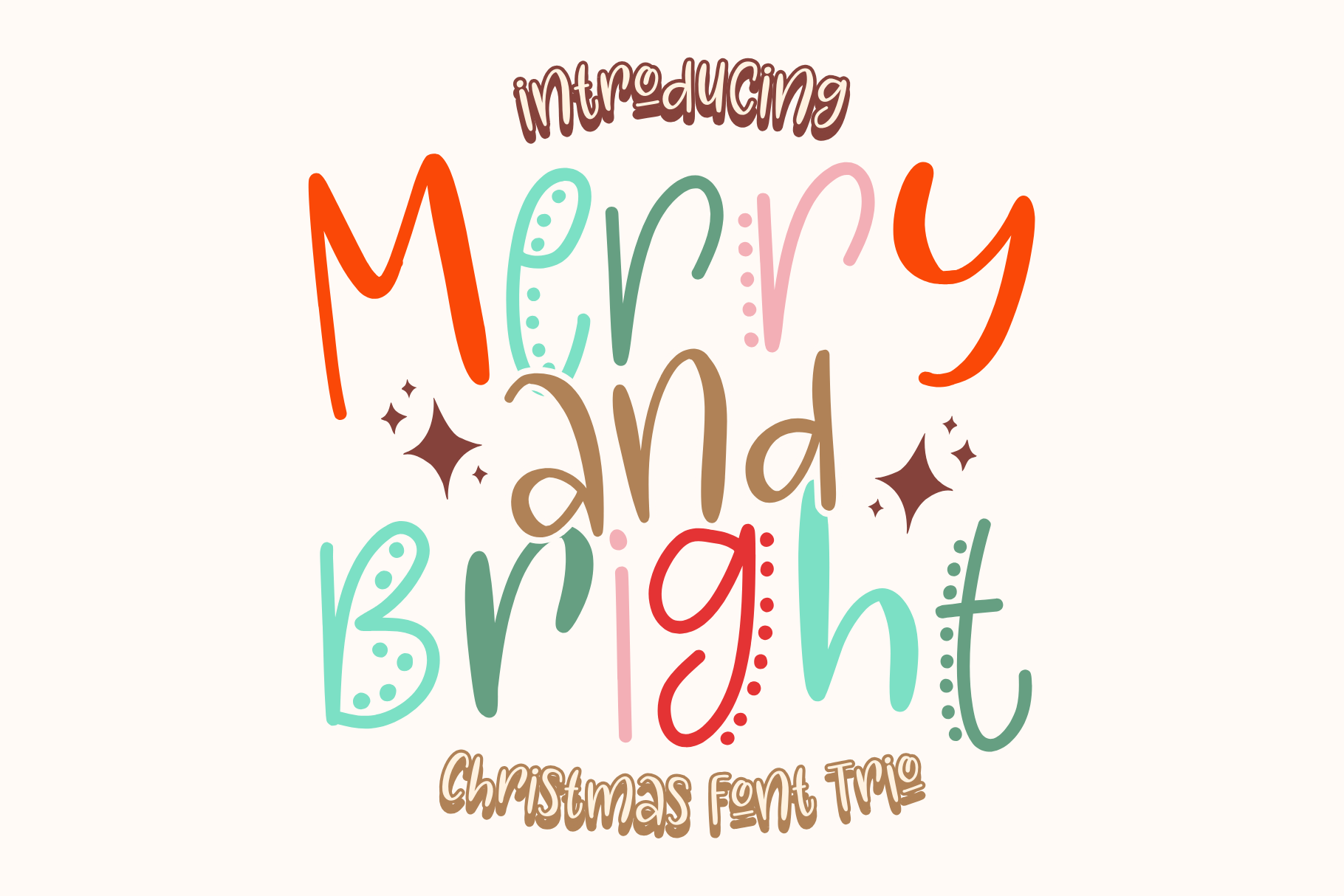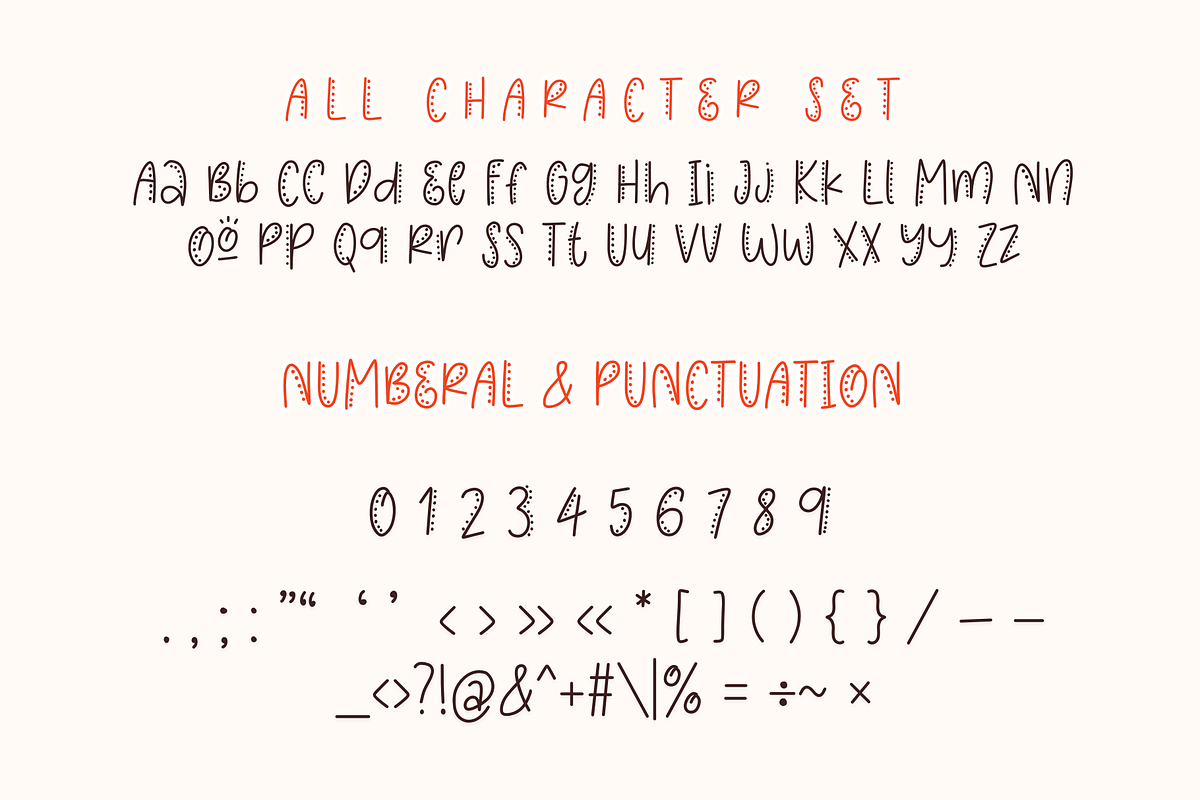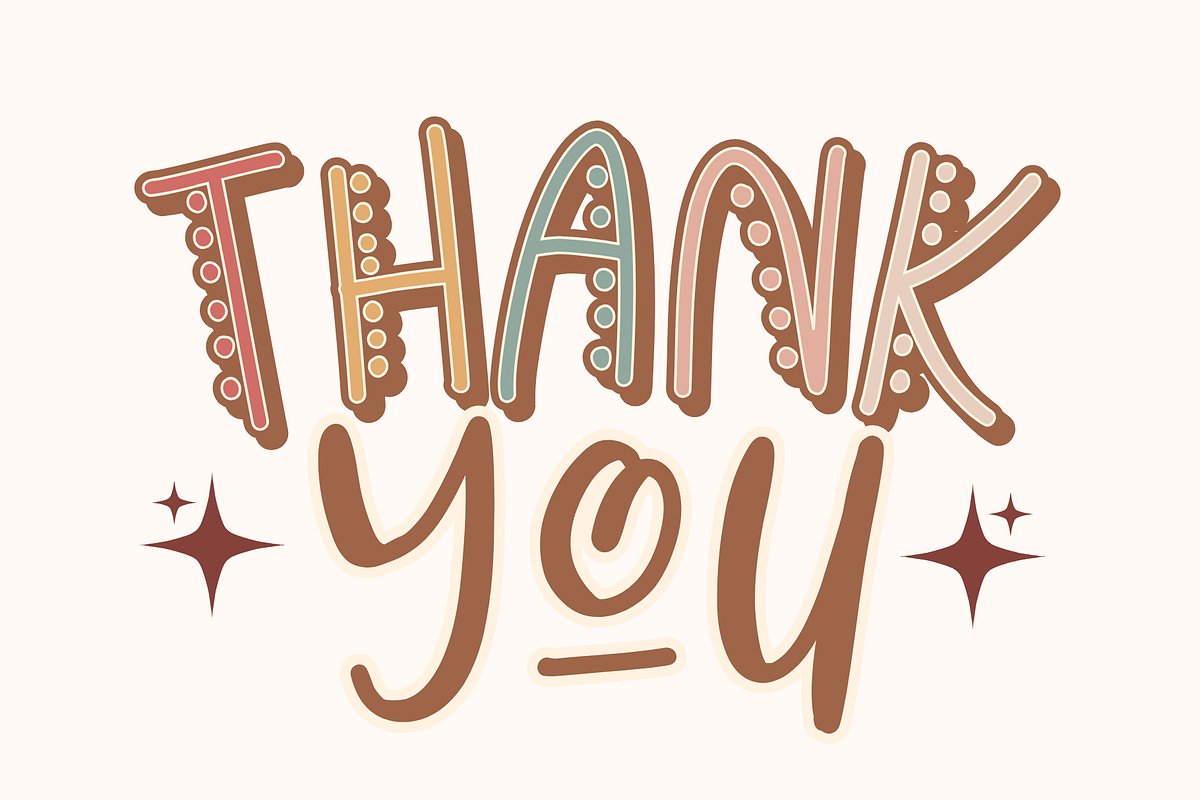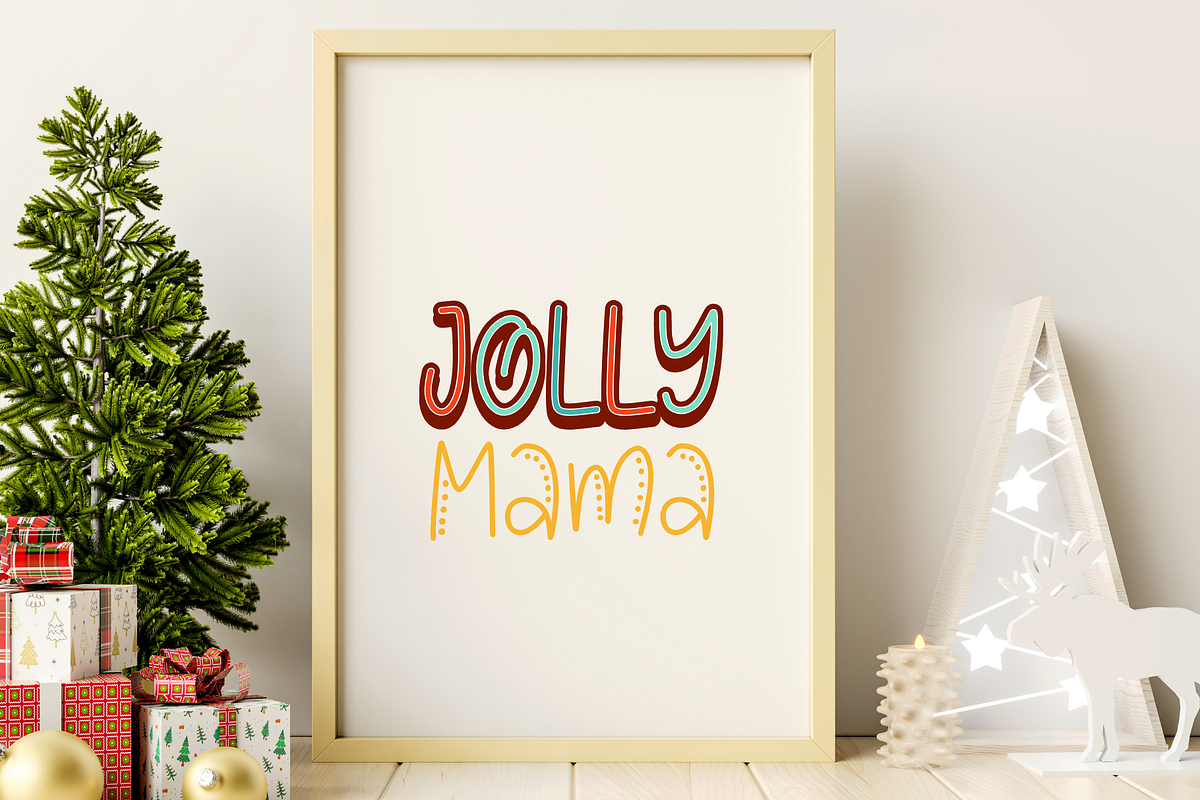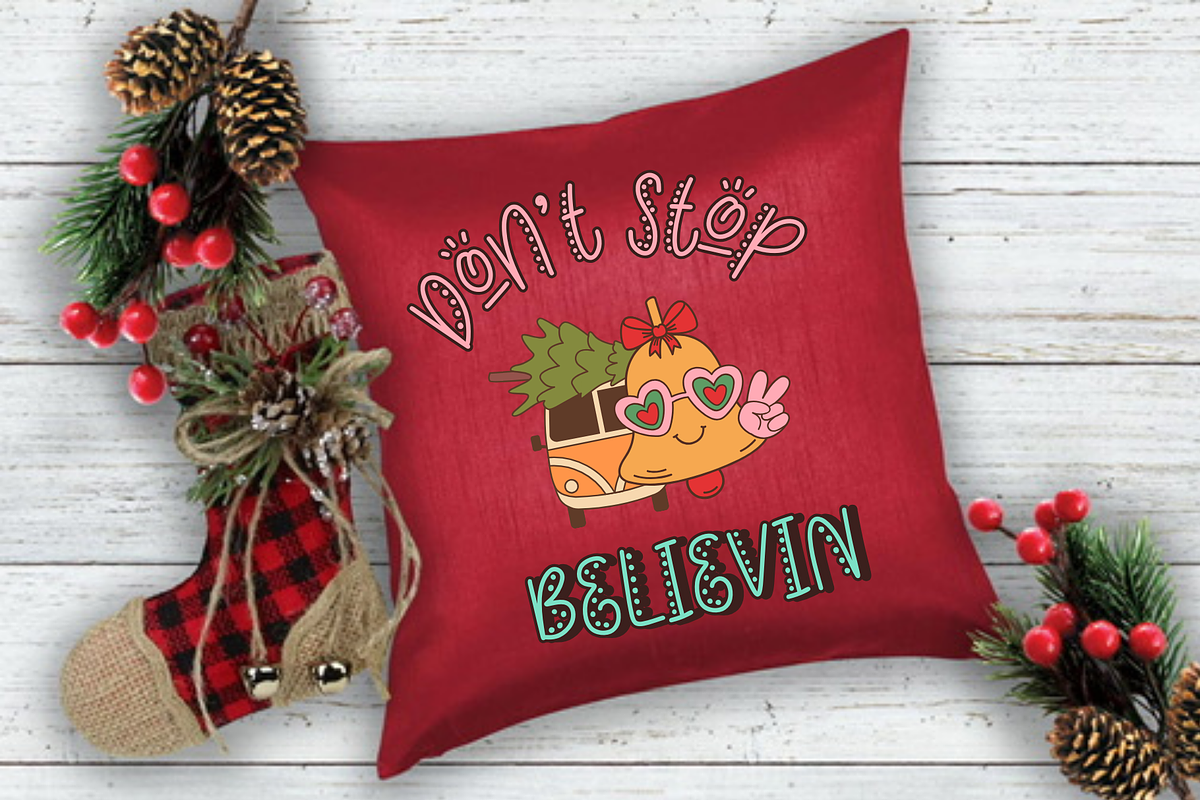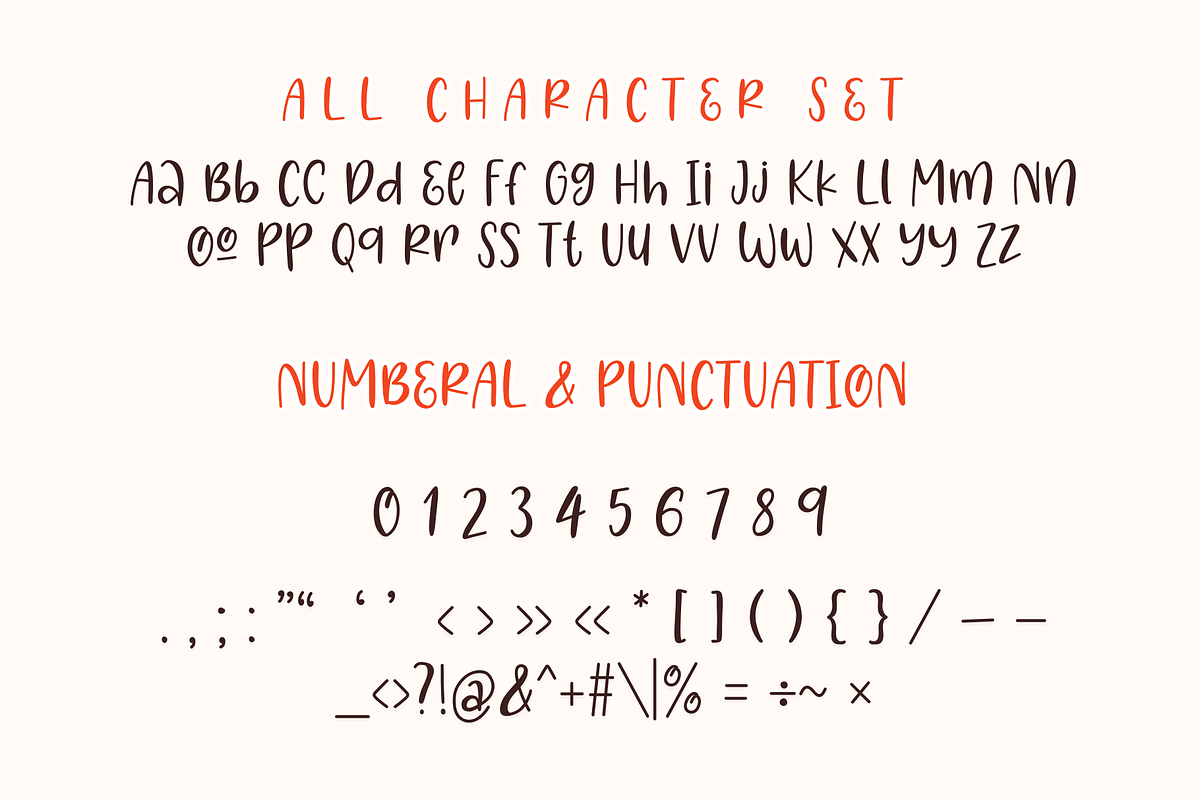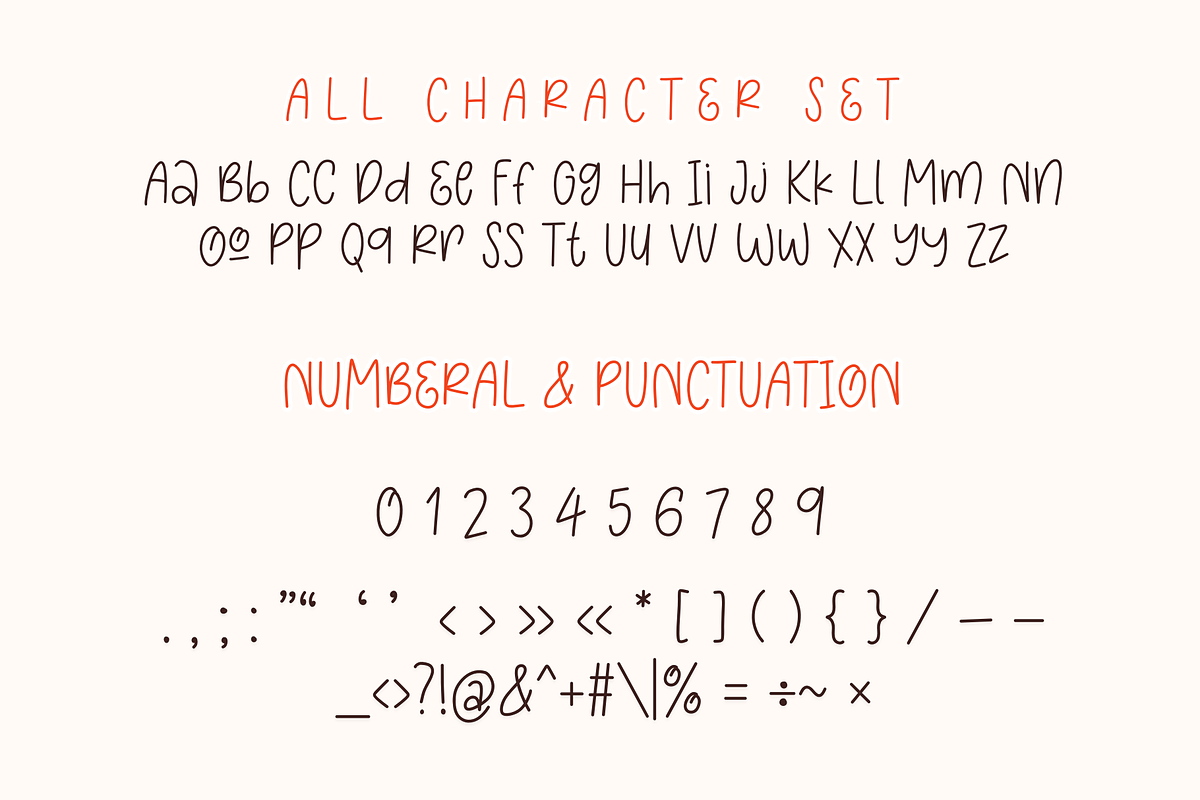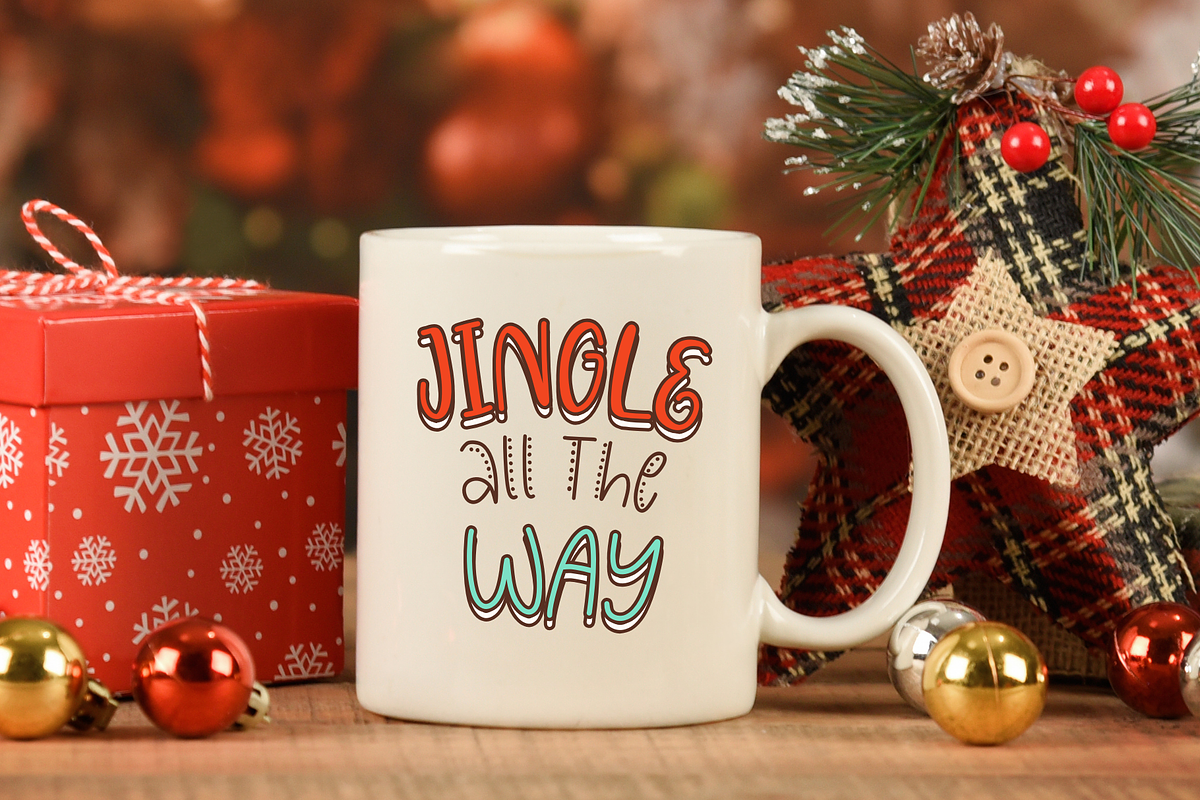
Merry And Bright is handwritten font
Merry And Bright is a cute handwritten font trio. It embodies playfulness and authenticity and is the perfect choice for all your favorite projects such as blog posts, logos, branding, ads, invitations, greeting cards, planners, photo albums, decorations, and more. Add it to any of your designs, and enjoy the results!